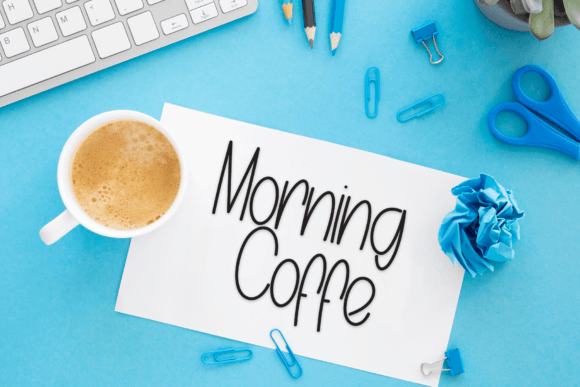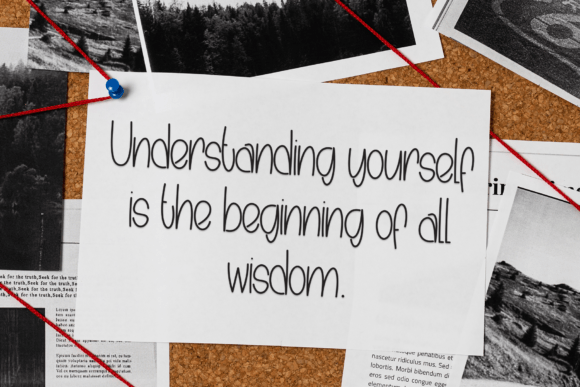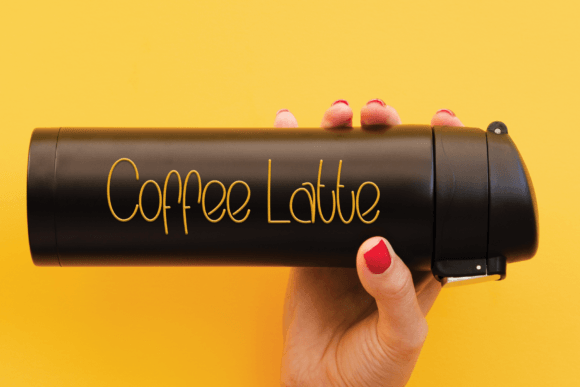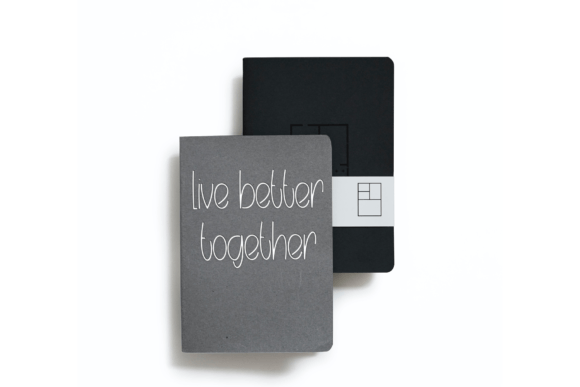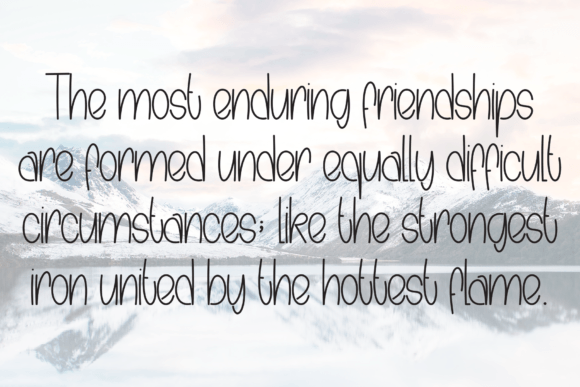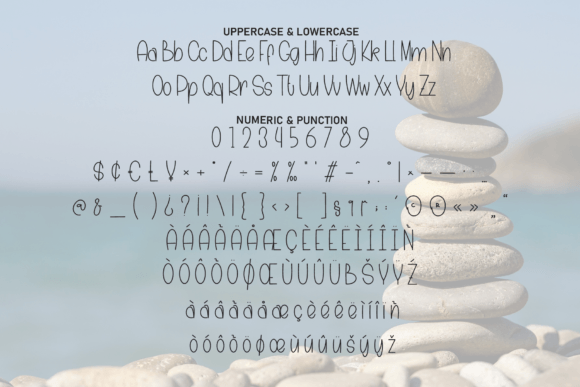
Introducing Balancing Font: The Ultimate Handwritten Font for Friendly Designs
In the world of typography, fonts play a crucial role in conveying emotions and setting the tone for designs. If you’re a designer or crafter looking for a font that exudes warmth, friendliness, and playfulness, look no further than Balancing Font. This charming handwritten font is designed to radiate a friendly aura, making it perfect for projects that require a personal touch.
The Characteristics of Balancing Font
Balancing Font boasts a lovable and playful style that is sure to bring a sense of joy and cheer to your design work. Its unique, handwritten aesthetic is characterized by:
- Fluid strokes and smooth connections, creating a natural and effortless look
- A warm and inviting tone that evokes feelings of happiness and friendliness
- A playful and whimsical flair, perfect for adding a touch of personality to your designs
Perfect for Heartwarming Designs
Whether you’re crafting heartwarming wedding invitations, personalized cards, or other special occasion designs, Balancing Font is the perfect choice. Its friendly and approachable style ensures that your creations will be well-received by your audience, and its versatility allows it to be used in a variety of design applications, including:
- Personalized cards and gift tags
Why Choose Balancing Font?
With so many fonts to choose from, why should you choose Balancing Font for your design projects? Here are just a few reasons:
- Unique and distinctive style: Balancing Font’s handwritten aesthetic sets it apart from more traditional fonts, ensuring that your designs will stand out from the crowd.
- Emotional connection: The warm and friendly tone of Balancing Font helps to create an emotional connection with your audience, making your designs more relatable and engaging.
- Versatility: Balancing Font can be used in a variety of design applications, from digital to print, making it a valuable addition to your font library.
Tips for Using Balancing Font
To get the most out of Balancing Font, here are a few tips to keep in mind:
- Pair with complementary fonts: Balancing Font pairs well with clean, sans-serif fonts, which provide a nice contrast to its playful, handwritten style.
- Experiment with colors: The warm tone of Balancing Font lends itself well to bright, cheerful colors, but feel free to experiment with different color palettes to find the perfect fit for your design.
- Play with layout and composition: Balancing Font’s unique style allows for creative experimentation with layout and composition, so don’t be afraid to try out different arrangements and typography combinations.
In conclusion, Balancing Font is a charming and warm handwritten font that is sure to bring a friendly and playful touch to your design work. With its unique style, emotional resonance, and versatility, it’s the perfect choice for designers and crafters looking to create heartwarming and engaging designs. So why wait? Try Balancing Font today and see the difference it can make in your designs!